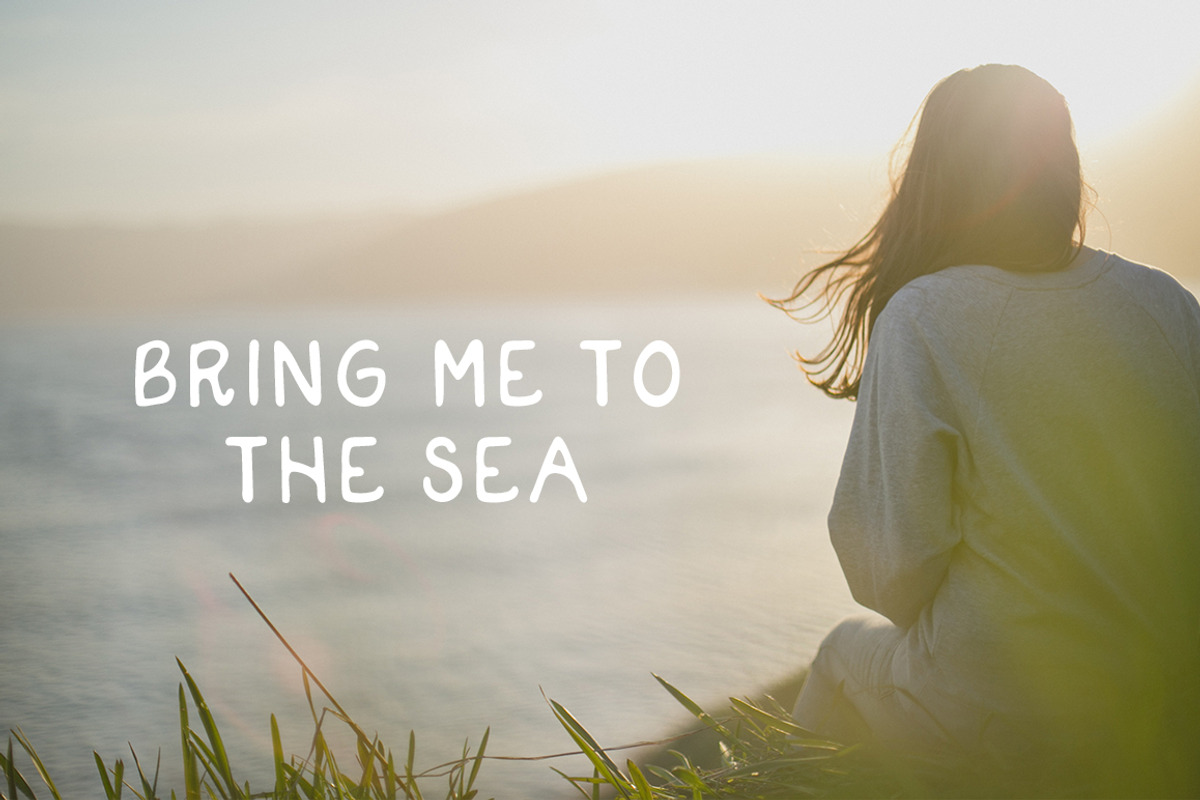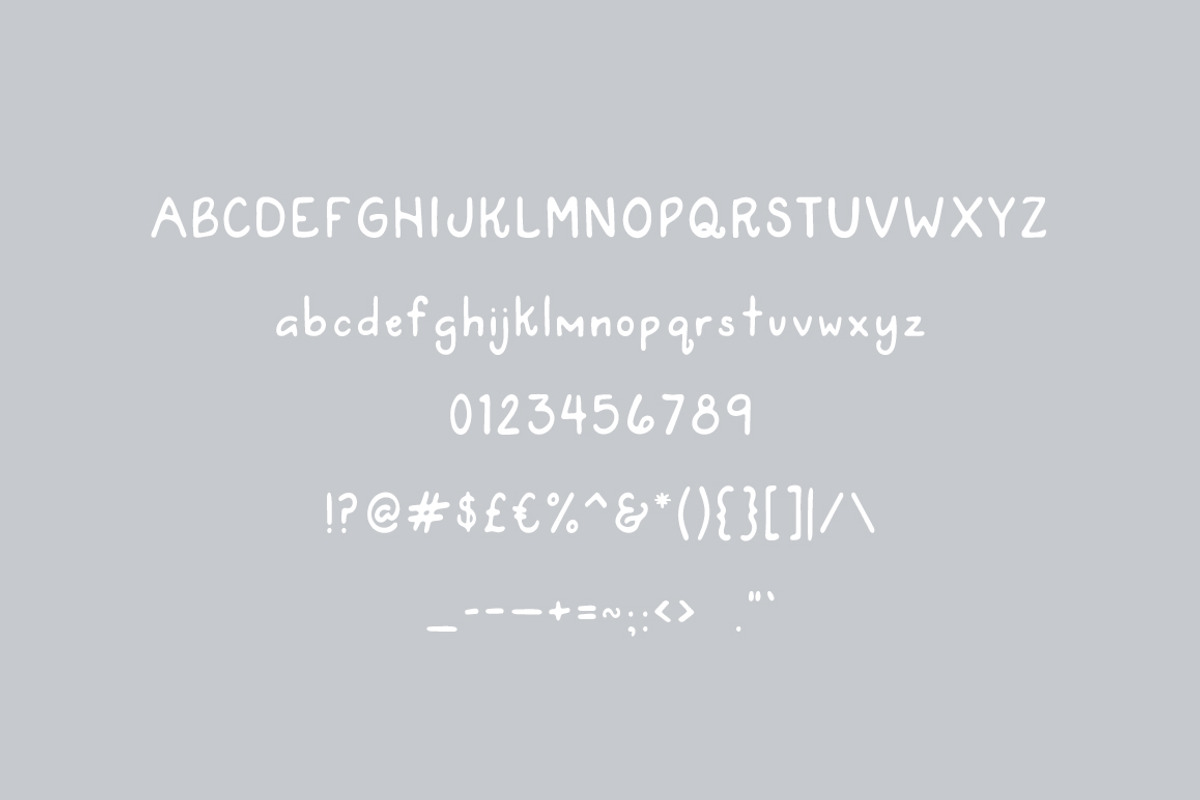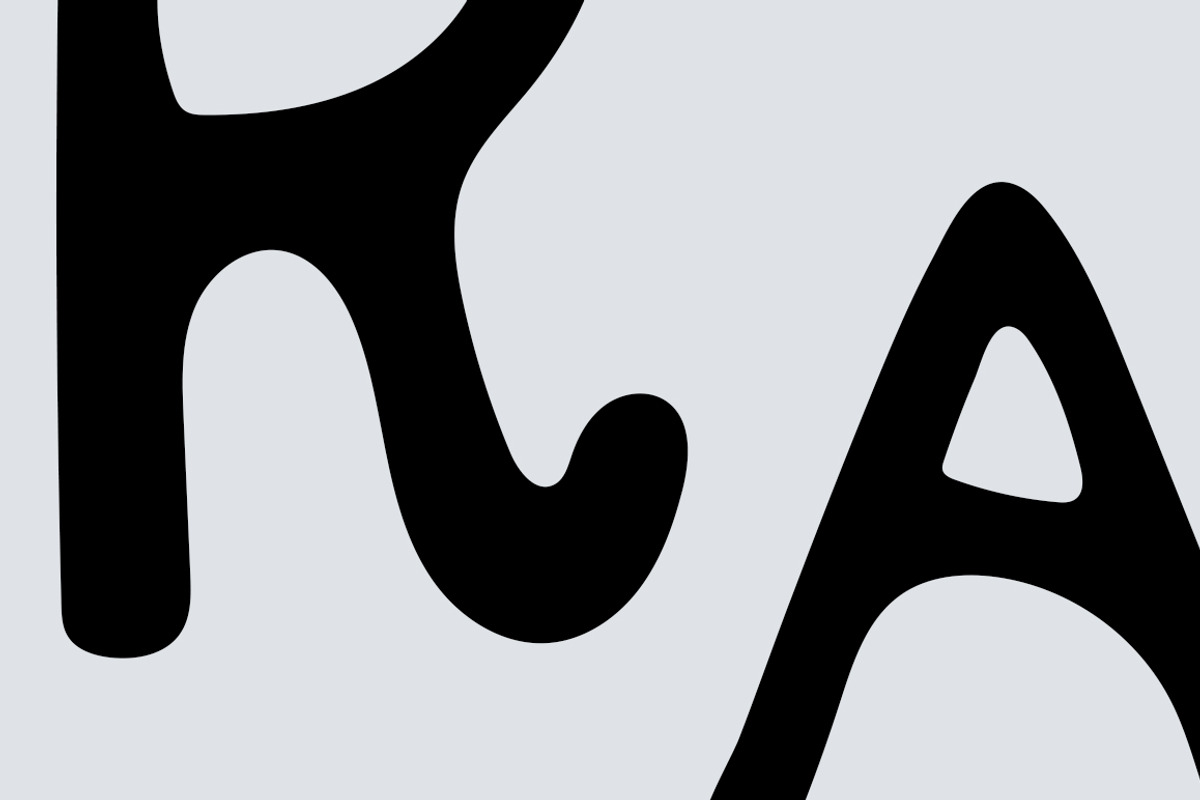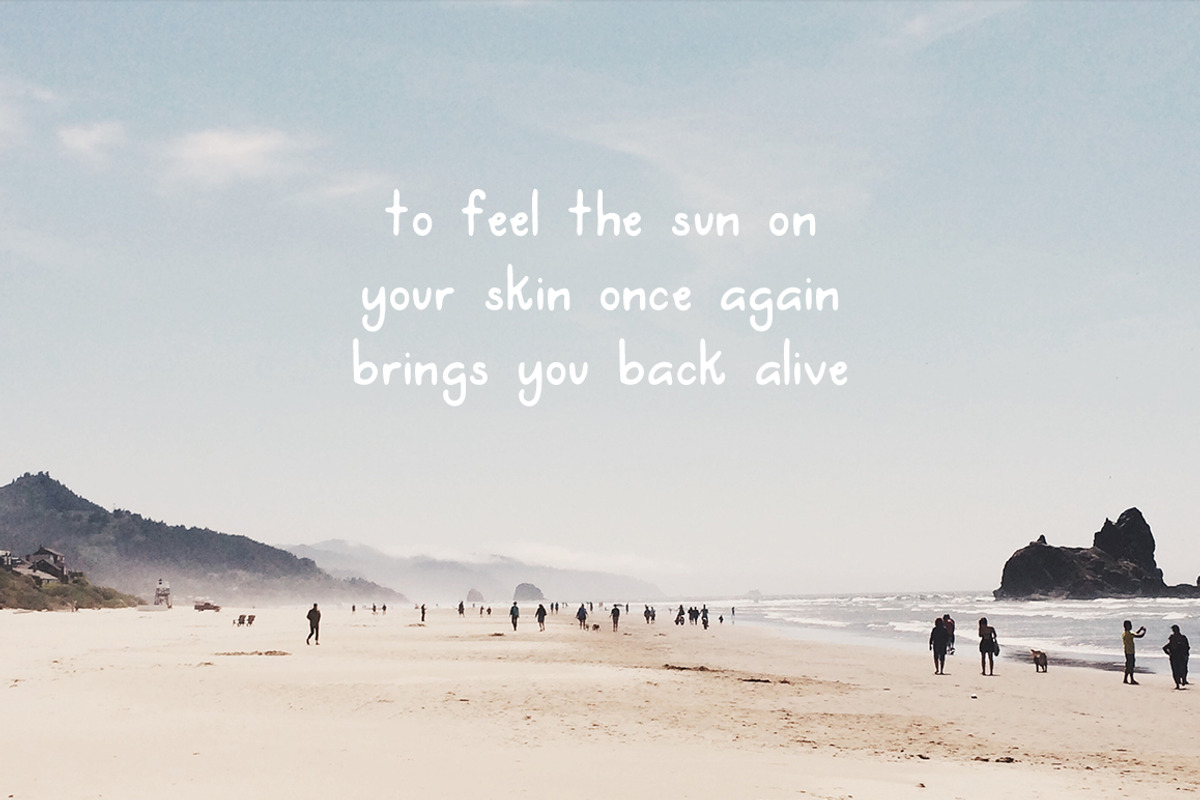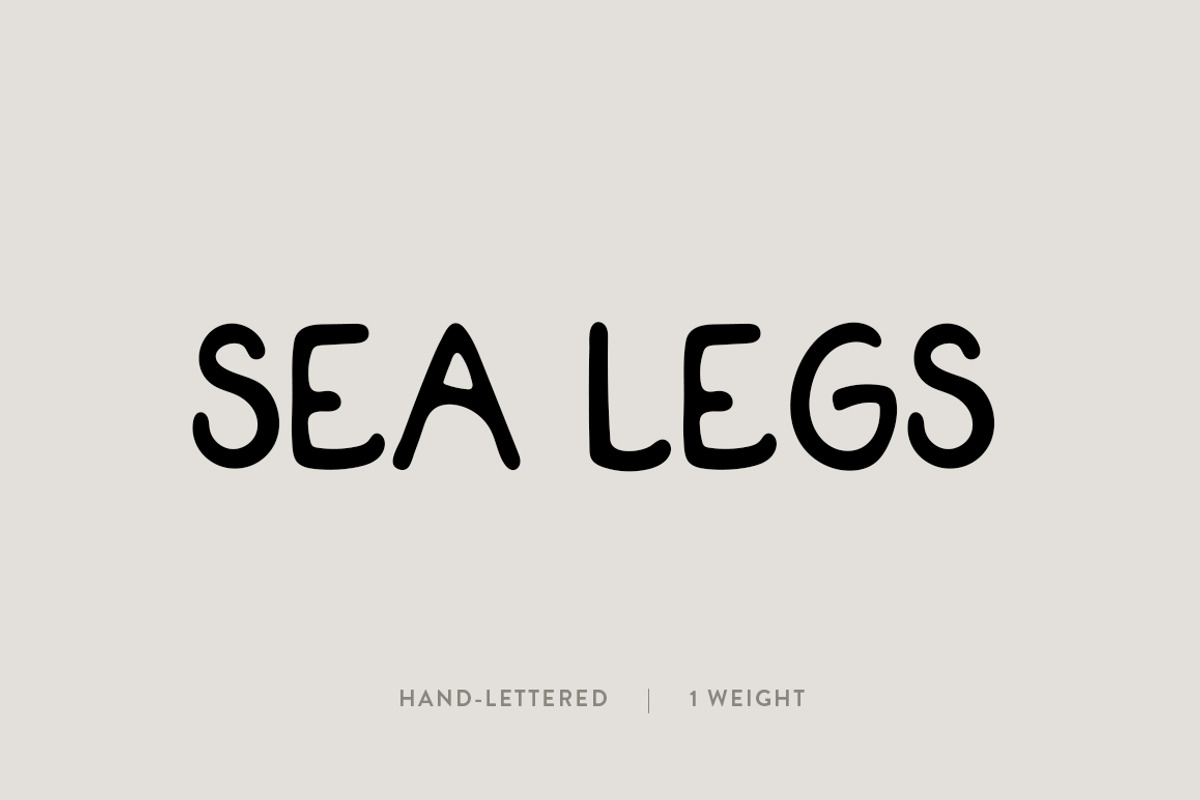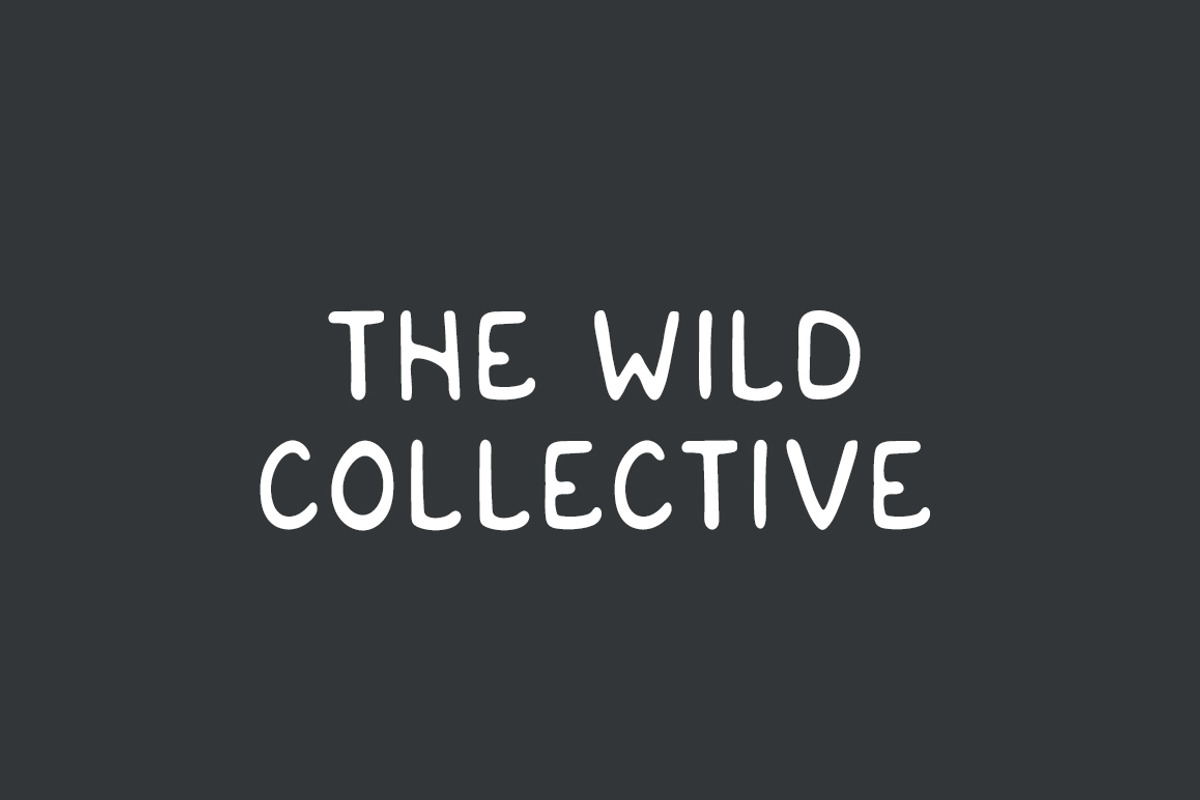
Sea Legs: A Hand-Lettered Font
The Sea Legs Font
Sea Legs is an easygoing font. It has organic curves and flowing lines that keep it feeling free. Inspired by modern hand lettering but with a twist of lines mimicking the current of the ocean. This font works best as a header font or for smaller bodies of text. It is perfect for projects that need a naturally bold font like blog posts, social graphics, event posters, and logos.
This font was created by hand and then digitized. Enjoy!